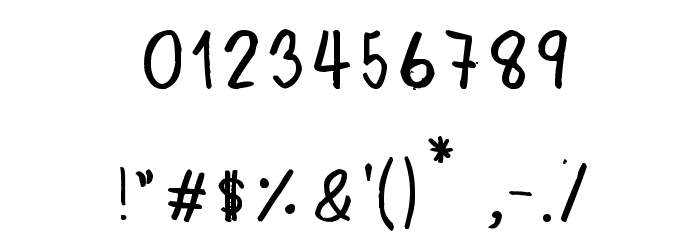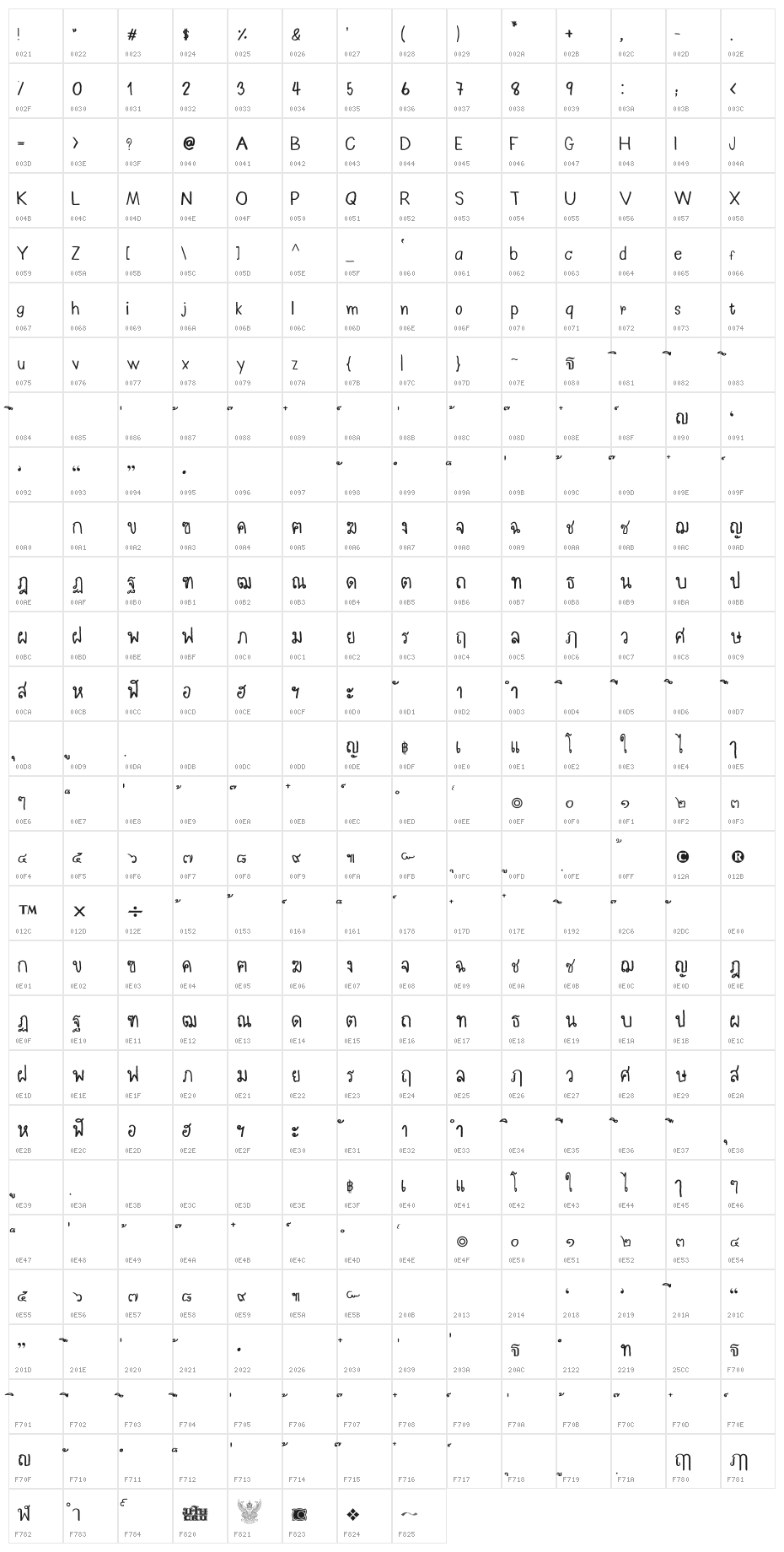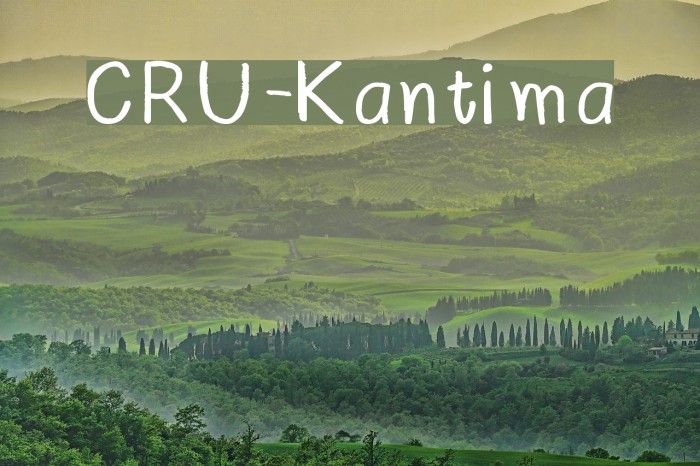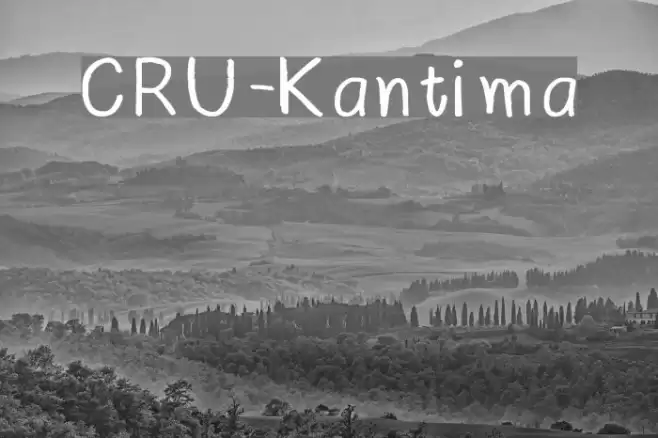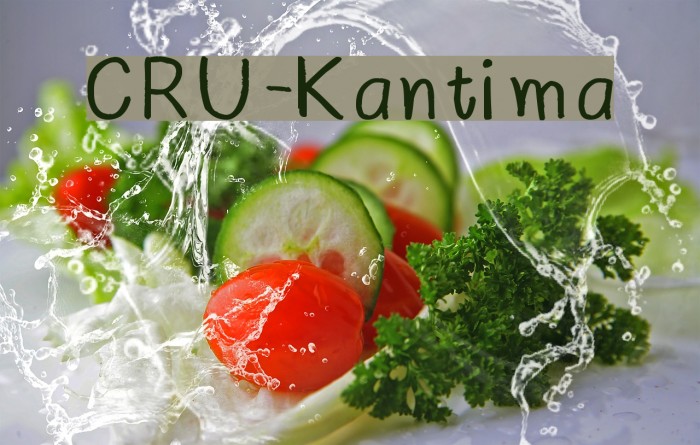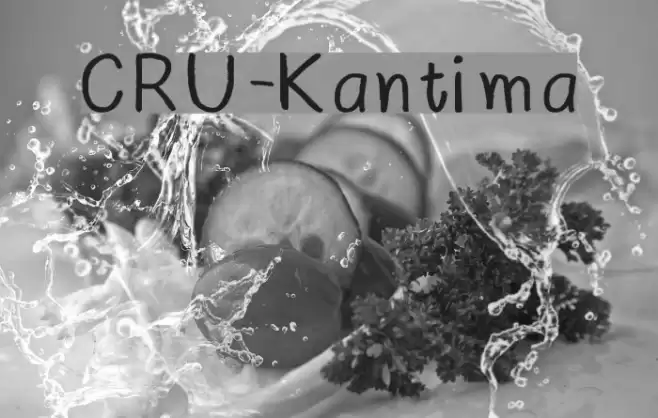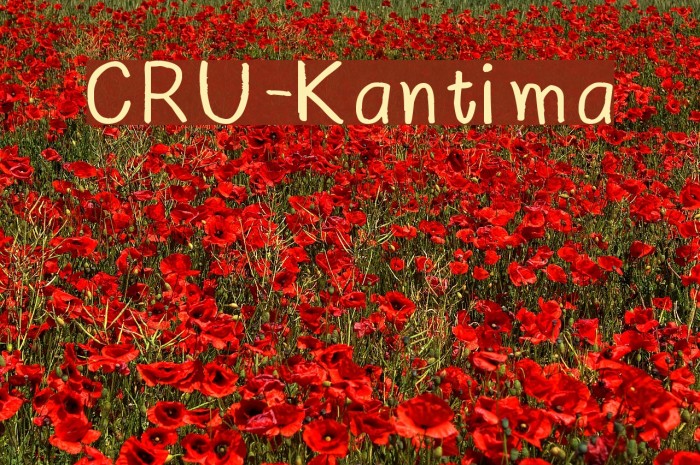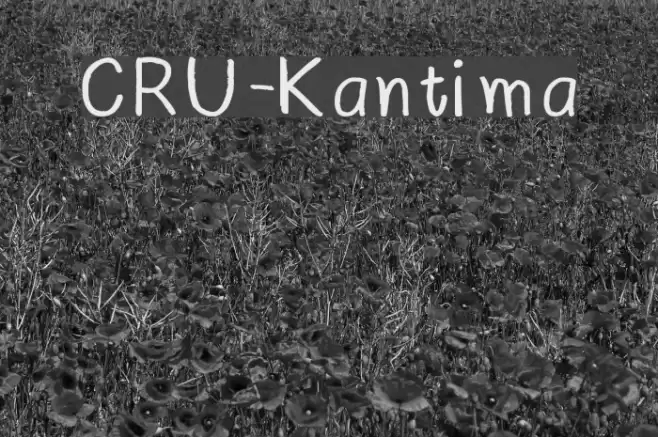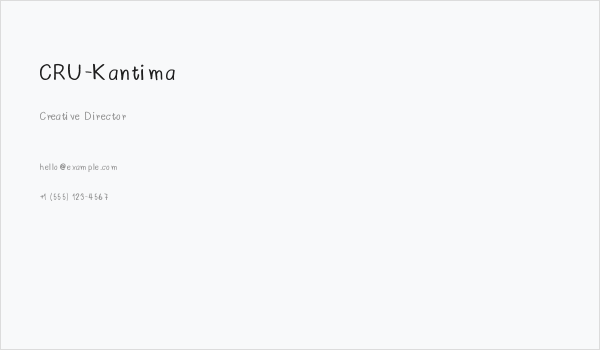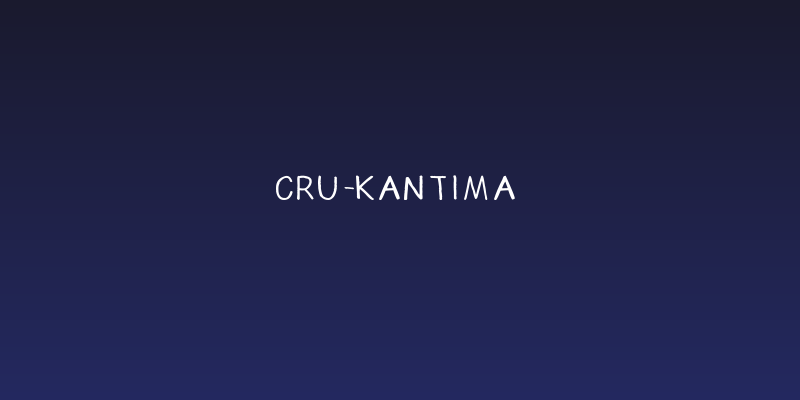
CRU-Kantima Font
CRU-Kantima Description
This font features a playful and informal handwritten style, characterized by its uneven strokes and slightly irregular letterforms. The uppercase letters are bold and prominent, while the lowercase letters maintain a consistent flow with a casual appearance. Numbers and special characters follow the same whimsical style, adding a touch of personality to any text. The overall design is approachable and friendly, making it suitable for projects that require a personal touch. The font's unique charm lies in its imperfect lines and organic feel, which can evoke a sense of warmth and creativity.
| Proposed Projects | Ideal for greeting cards, children's books, personal blogs, and creative branding. |